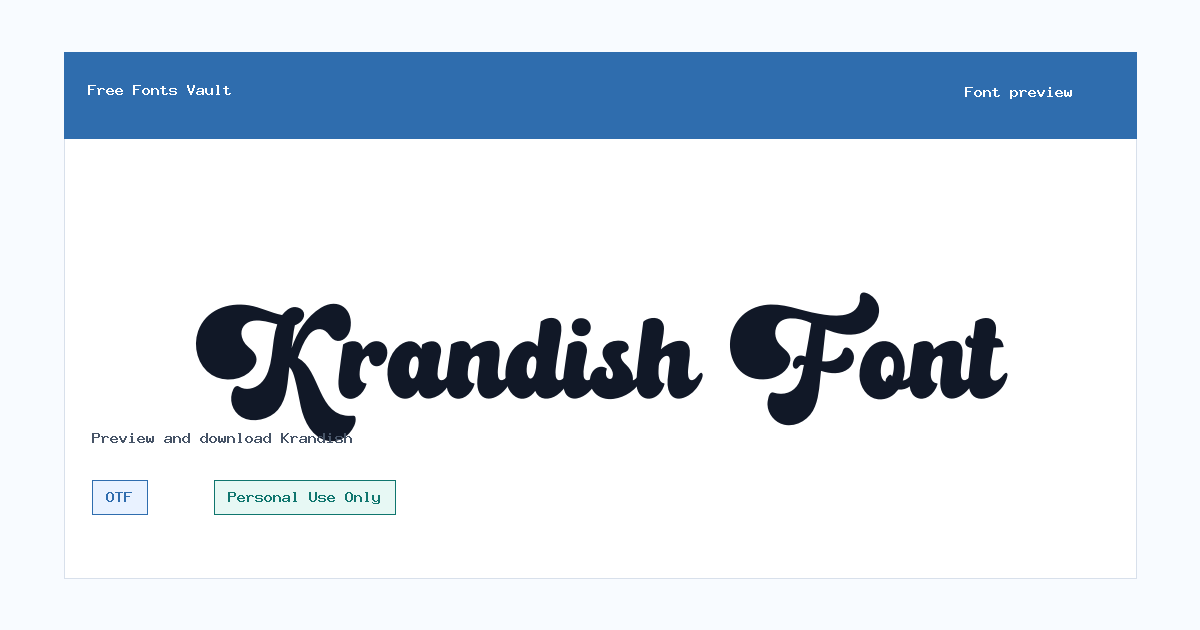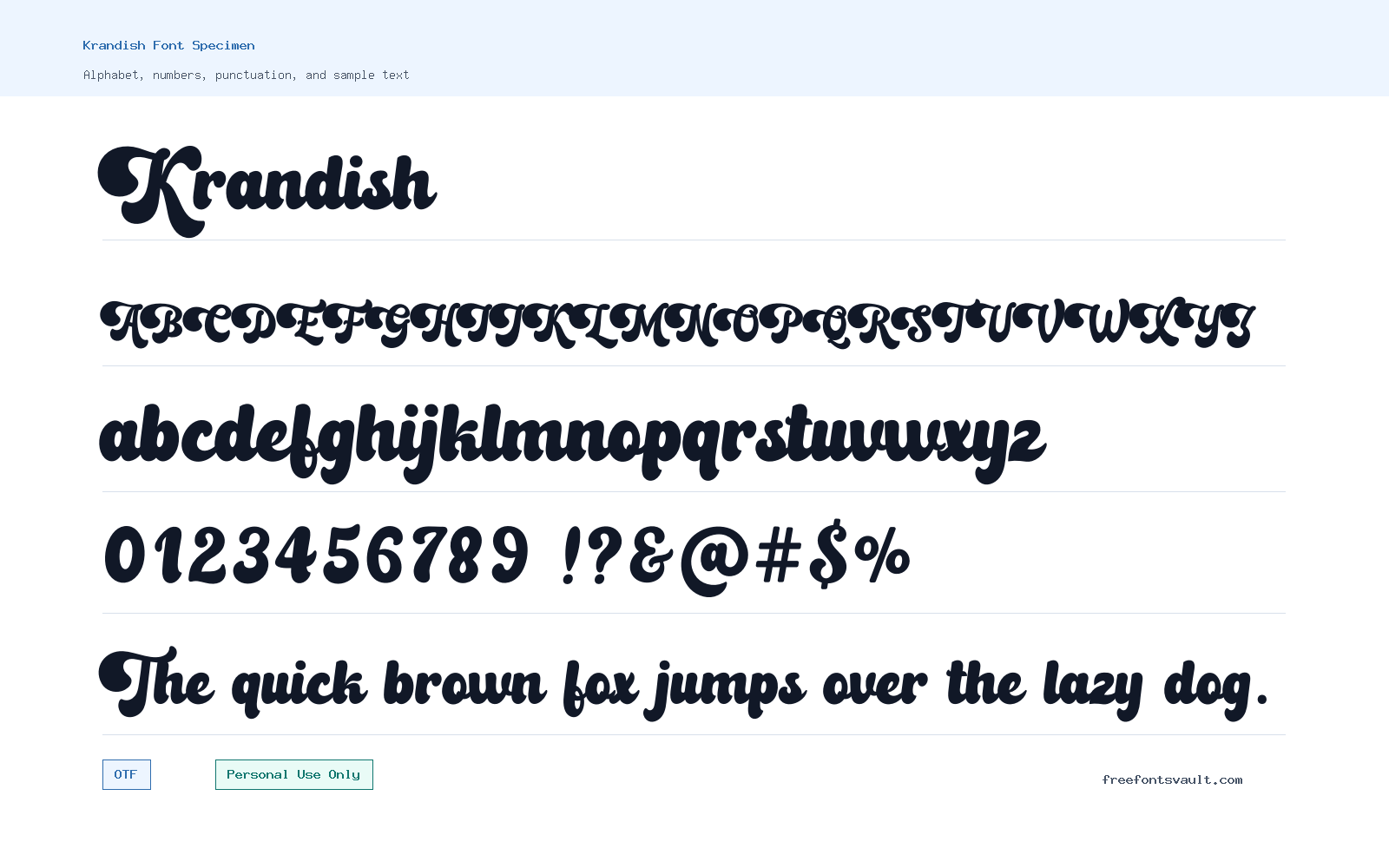
Krandish
Krandish is a retro script font with a regular OTF style, made for projects that need a warm, decorative lettering feel. It is best treated as a display font: use it where the words are short, the size is generous, and the lettering has room to stand out.
Krandish works well when you want a script look without building custom lettering from scratch. The family name, file details, and license label point to a retro script style, so it is a better fit for expressive headings than for long reading text. Try it for short phrases, name treatments, poster titles, packaging mockups, social graphics, invitation-style layouts, or personal branding experiments. Because it is a script font, the shape and rhythm of each word matter. Type your exact text in the preview, check how the letters connect, and make sure the spacing still feels natural at the size you plan to use.
For logo work and web mockups, Krandish can help explore a vintage, hand-lettered direction during the concept stage. Keep the license limit in mind: the font is marked Personal Use Only, so client logos, sold products, advertising, monetized websites, and brand assets should not use it unless you obtain the right commercial permission from the creator or seller. In design layouts, pair Krandish with a quiet sans serif or a simple serif so the script remains the main voice. Avoid using it for body copy, dense menus, legal text, or small mobile labels, where decorative scripts can lose clarity.
- Retro script display style suited to short titles, names, and decorative lettering.
- Single regular weight, so contrast and hierarchy should be handled through size, color, spacing, and supporting typefaces.
- Script styling that benefits from careful word-by-word previewing, especially for logos, posters, badges, and headline graphics.
- Personal poster designs, quote graphics, mood boards, and retro-inspired title treatments.
- Logo concept exploration, provided the final commercial or client use is licensed properly.
- Packaging mockups, label studies, badge designs, and social media graphics used for personal projects.
- Invitation-style headings, names, short greetings, and decorative display text.
- Web design mockups where the script is used sparingly as a hero heading or accent.
Use Krandish as a display face rather than a reading font. Start with short words or compact phrases, then test uppercase, lowercase, numbers, and punctuation in the preview. If a word feels too busy, increase spacing, simplify the surrounding layout, or pair it with a plain sans serif. For logos, convert only after the lettering is final and after licensing is cleared for the intended use.
What kind of font is Krandish?
Krandish is identified as a retro script font. It is best used for display text such as titles, logos, labels, and short decorative phrases.
Is Krandish good for body text?
It is not the best choice for long paragraphs. Use it for short display text and pair it with a simpler font for body copy.
What should I pair with Krandish?
Pair it with a clean sans serif or a restrained serif. Let Krandish handle the expressive headline while the supporting font carries smaller information.